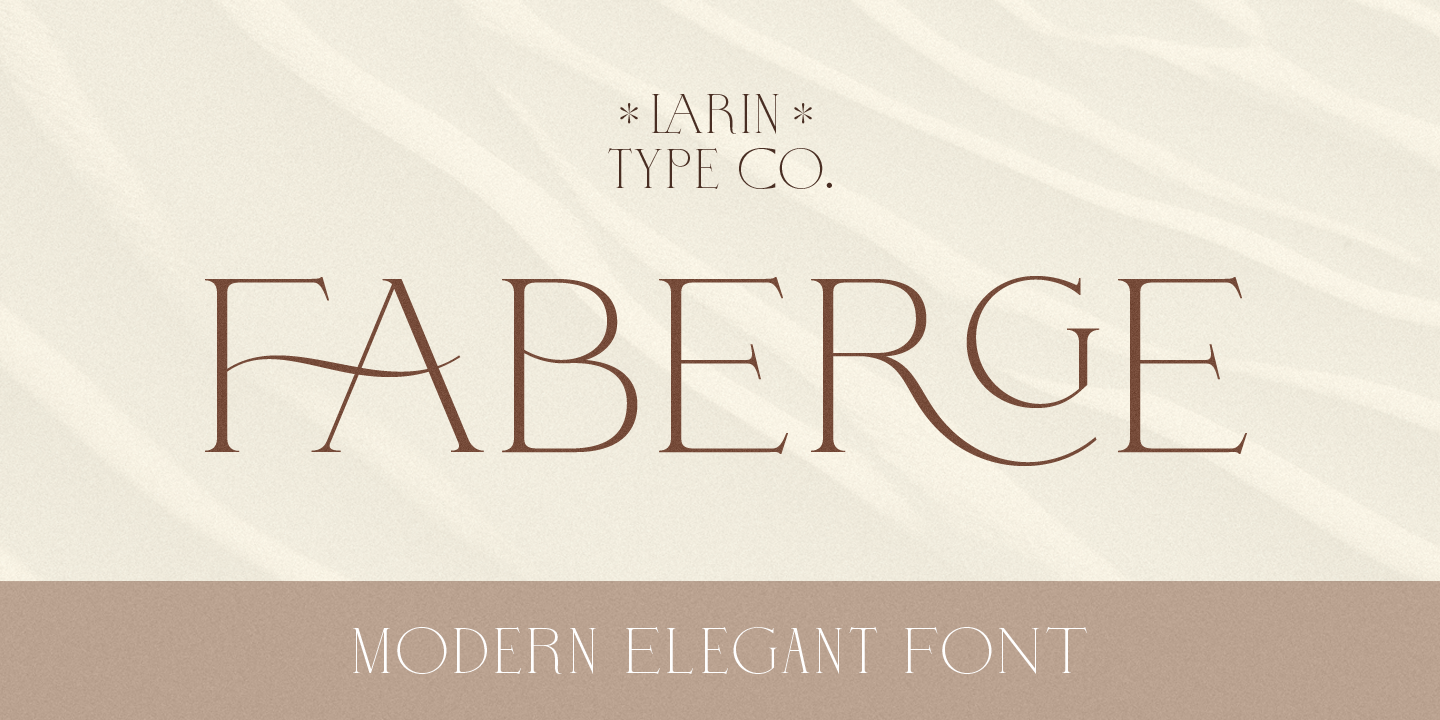
Fabergé Font Free Download – A luxurious, ornate typeface inspired by the exquisite craftsmanship of Imperial Russian jewelry. Commercial use requires licensing, but you can download the free version to add royal elegance to your personal projects.
Where Can You Use Fabergé Font?
This opulent font enhances:
Luxury jewelry branding (high-end watches, diamond collections)
Royal-themed invitations (gala events, black-tie weddings)
Heritage branding (premium vodka labels, five-star hotels)
Fashion editorials (couture lookbooks, luxury magazines)
Why Is Fabergé Font Exciting?
Fabergé delivers imperial grandeur with:
Intricate decorative swashes inspired by jeweled eggs
Gold foil texture options built into the font files
Cyrillic character support for authentic Russian elegance
Perfect balance between ornamentation and readability
Fabergé Font Family
The complete imperial collection includes:
Fabergé Regular (base ornate style)
Fabergé Bold (extra jewel-encrusted weight)
Fabergé Ornaments (standalone decorative elements)
Fabergé Deluxe (premium layered gold version)